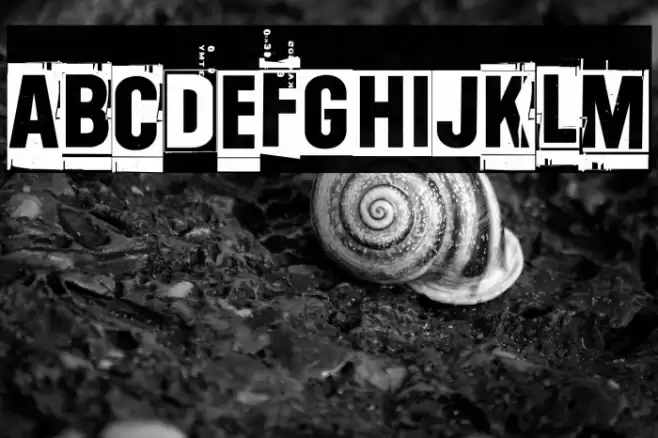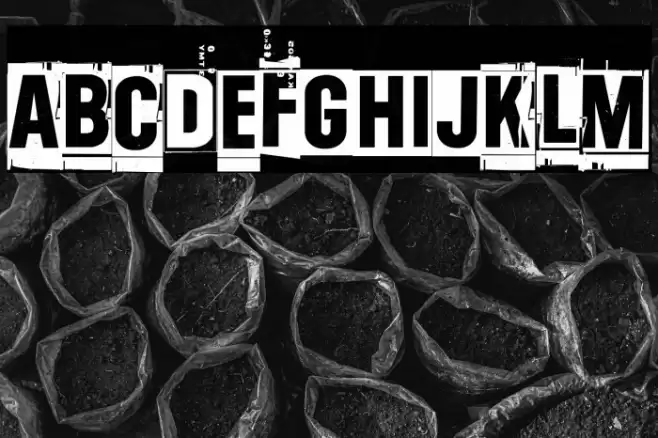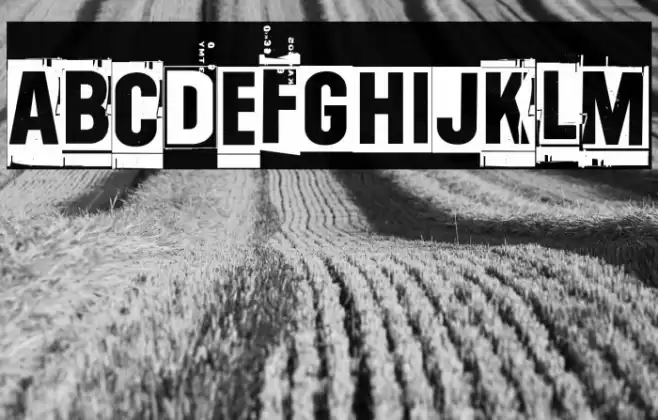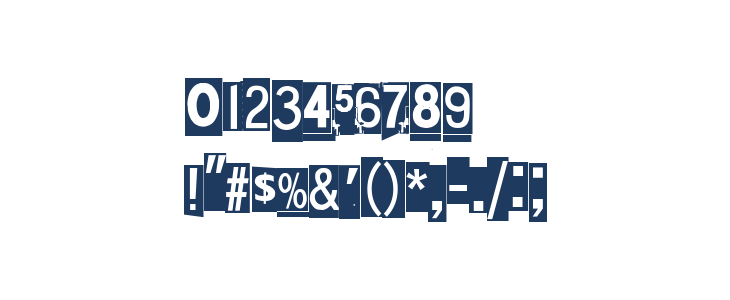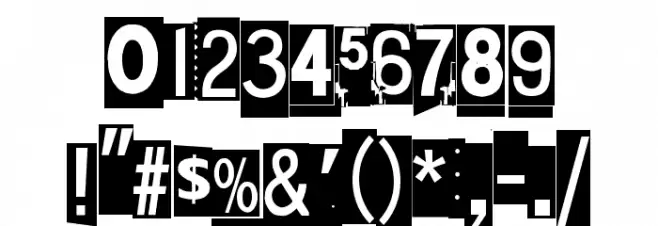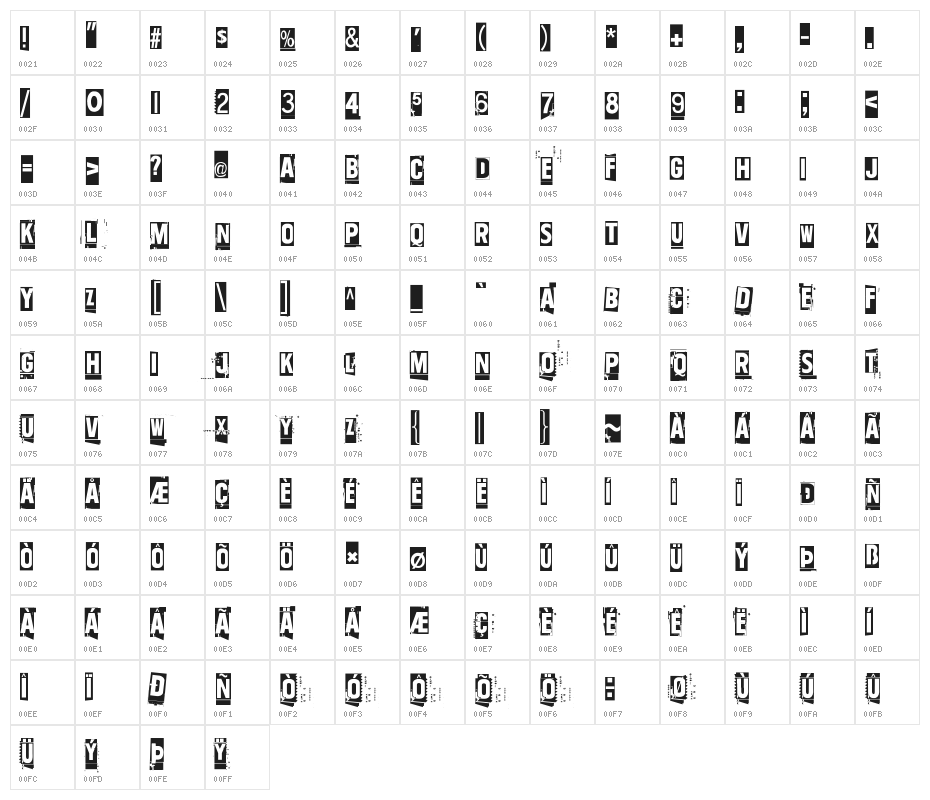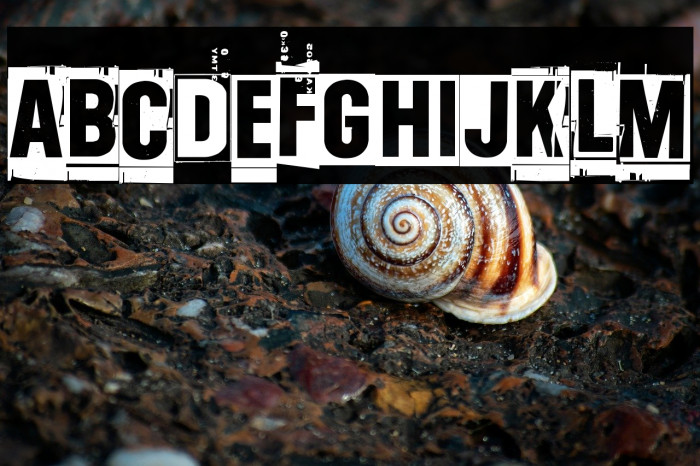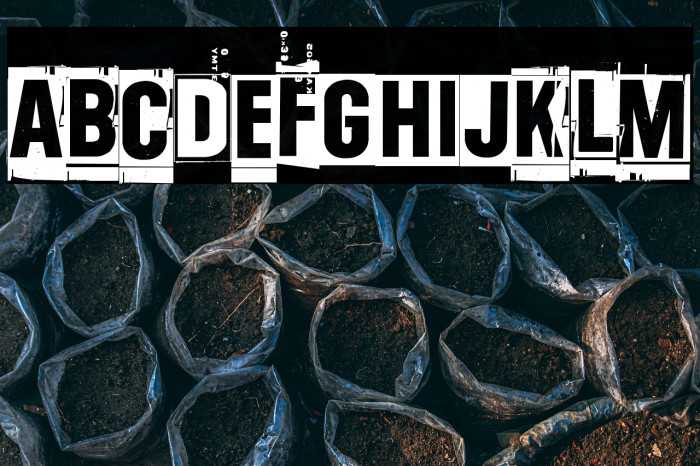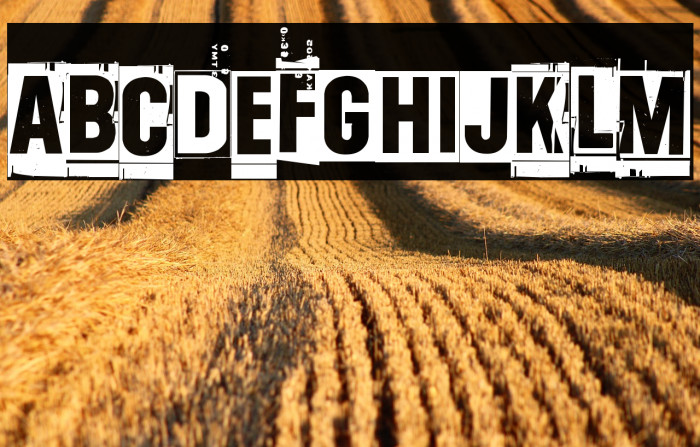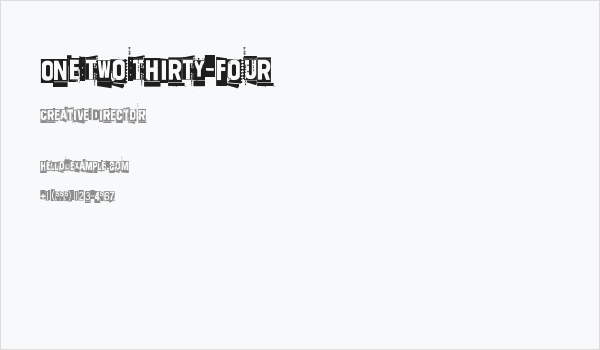
One two thirty-four Font
One two thirty-four Description
This font features a bold and impactful style with a distressed, grunge aesthetic. Each character appears as if it has been cut from a magazine or newspaper, giving it a ransom note feel. The letters are uppercase and lowercase, with numbers and special characters included. The design is highly decorative, with irregular edges and a textured appearance that adds to its unique charm. This font is perfect for projects that require a rebellious or edgy look, such as posters, album covers, or themed event invitations.
A bold, distressed font with a grunge, ransom note style from Uncategorized fonts.
- Proposed Projects: Ideal for posters, album covers, themed event invitations, and any project needing an edgy, rebellious aesthetic.